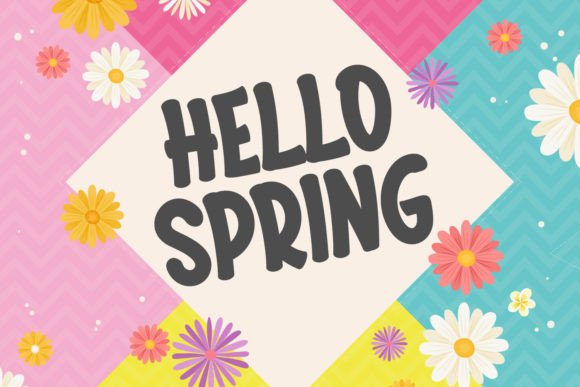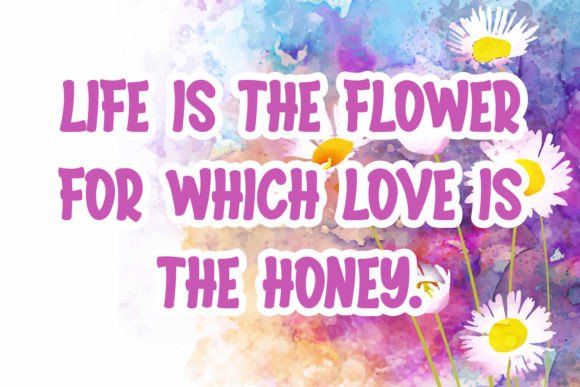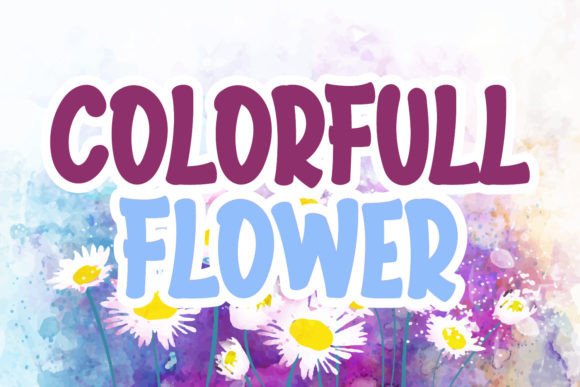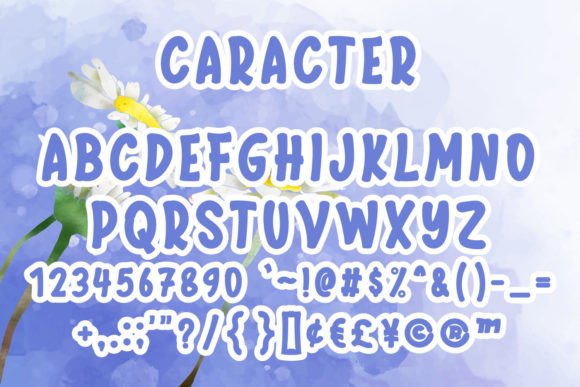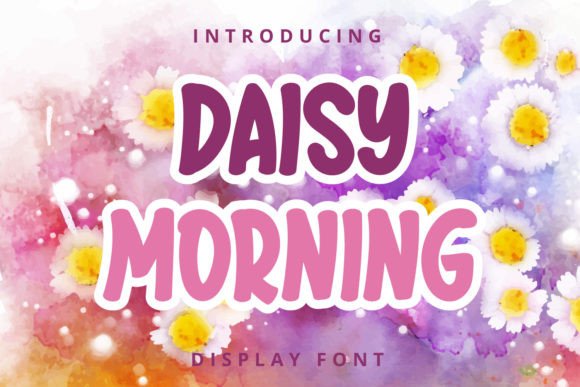
Daisy Morning Font: Elevate Your Designs with its Unique Charm
Are you looking for a font that can add a touch of elegance and whimsy to your designs? Look no further than the Daisy Morning Font. This beautiful display font is perfect for crafters, designers, and anyone looking to create stunning visual content. In this article, we’ll dive into the features and benefits of the Daisy Morning Font, and explore how you can use it to take your designs to the next level.
The Allure of Daisy Morning Font
Daisy Morning Font is a stunning display font that boasts an alluring look. Its thick and softly curved characters give it a unique charm that’s hard to resist. The font’s distinctive design makes it perfect for headlines, posters, covers, crafting projects, and many more. Whether you’re creating a logo, brochure, or social media graphic, the Daisy Morning Font is sure to make your design stand out.
Key Features of Daisy Morning Font
- Unique Character Design: The Daisy Morning Font features thick and softly curved characters that give it a distinctive look.
- Display Font: This font is specifically designed for display purposes, making it perfect for headlines, titles, and other attention-grabbing elements.
- Versatile: You can use the Daisy Morning Font for a wide range of design projects, from crafting and scrapbooking to branding and advertising.
- Elegant and Whimsical: The font’s design strikes the perfect balance between elegance and whimsy, making it suitable for a variety of design styles.
Uses of Daisy Morning Font
The Daisy Morning Font is an incredibly versatile font that can be used for a wide range of design projects. Here are some ideas to get you started:
- Headlines and Titles: Use the Daisy Morning Font to create eye-catching headlines and titles for your blog posts, articles, and social media graphics.
- Posters and Flyers: Create stunning posters and flyers for events, promotions, and products using the Daisy Morning Font.
- Covers and Packaging: Use the font to create beautiful covers and packaging for your products, such as books, magazines, and crafts.
- Crafting Projects: Add a touch of elegance to your crafting projects, such as scrapbooking, card making, and journaling, with the Daisy Morning Font.
- Branding and Advertising: Use the font to create unique and memorable branding and advertising materials, such as logos, brochures, and billboards.
Tips for Using Daisy Morning Font
To get the most out of the Daisy Morning Font, here are some tips to keep in mind:
- Use it sparingly: The Daisy Morning Font is a display font, so use it sparingly to create emphasis and visual interest.
- Pair it with other fonts: Experiment with pairing the Daisy Morning Font with other fonts to create a unique and visually appealing design.
- Adjust the size and color: Play around with different sizes and colors to find the perfect combination for your design.
- Experiment with different design elements: Use the Daisy Morning Font in combination with other design elements, such as images, textures, and patterns, to create a stunning design.
The Daisy Morning Font is a beautiful and versatile display font that’s perfect for designers, crafters, and anyone looking to create stunning visual content. With its unique character design, elegant and whimsical look, and wide range of uses, this font is sure to become a favorite in your design arsenal. So why wait? Download the Daisy Morning Font today and start elevating your designs to the next level!